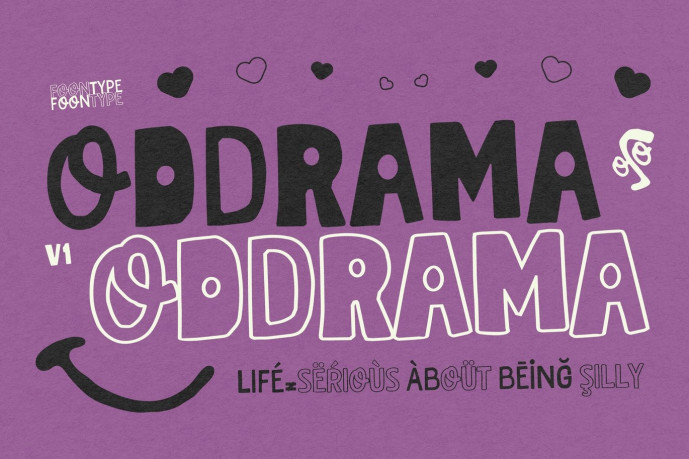
Oddrama Font
Designer: Foontype
Oddrama is a playful display font bursting with quirky personality, cheerful energy, and hand-drawn charm. Designed to bring a sense of fun and spontaneity to your projects, Oddrama features bold, irregular letterforms that feel expressive, friendly, and full of character. Perfect for children’s books and educational materials, playful branding and logos or packaging design.
Ideal for branding projects, editorial layouts, posters, merchandise, social media graphics, album artwork, gaming visuals, and creative campaigns.